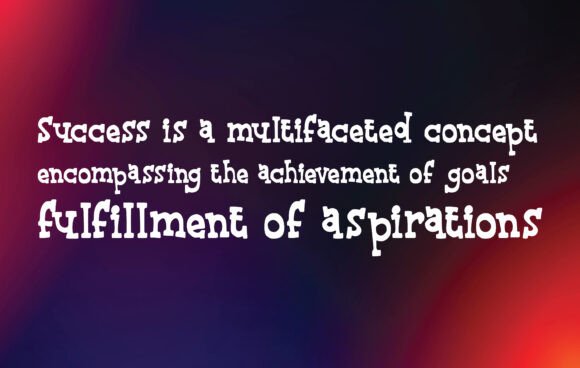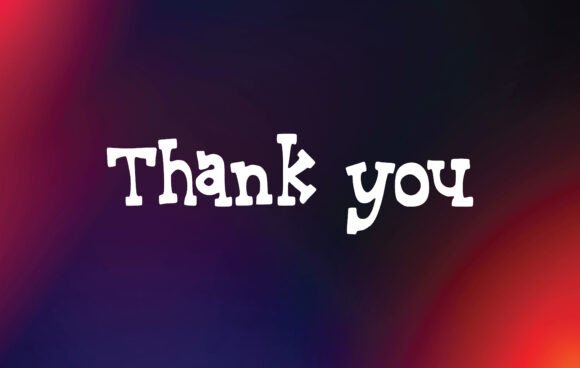
Addica Font: Elevate Your Creative Projects with this Lovely Handwritten Font
Are you a designer, craftsperson, or creative looking for a font that can take your projects to the next level? Look no further than Addica Font, a beautiful and lovely handwritten font that is sure to impress. With its unique and elegant style, Addica Font has the potential to elevate your creative ideas and make them shine.
What Makes Addica Font Special?
Addica Font is a carefully crafted handwritten font that boasts a distinctive and charming style. Its elegant lines, curves, and flourishes make it perfect for creating eye-catching logos, branding materials, and quotes. Whether you’re working on a personal project or a client’s, Addica Font is sure to make a lasting impression.
Key Features of Addica Font
- Unique and Elegant Style: Addica Font features a one-of-a-kind, handwritten design that is both sophisticated and charming.
- Highly Versatile: This font is perfect for a wide range of creative projects, from logos and branding to quotes and social media graphics.
- Easy to Read: Despite its elegant style, Addica Font is highly legible, making it perfect for both digital and print applications.
- Scalable: Addica Font is designed to look great at any size, from small captions to large headlines.
Why Choose Addica Font?
So why choose Addica Font over other fonts? Here are just a few reasons:
- Stand Out from the Crowd: With Addica Font, you can create unique and eye-catching designs that will set you apart from the competition.
- Save Time: This font is easy to use and doesn’t require a lot of manual adjustments, saving you time and effort.
- Professional Results: Addica Font is designed to produce professional-looking results, making it perfect for clients who demand high-quality designs.
How to Use Addica Font
- Experiment with Different Sizes: Addica Font looks great at a variety of sizes, so don’t be afraid to experiment and find the perfect size for your project.
- Play with Colors: This font looks great in a range of colors, from bold and bright to soft and pastel.
- Combine with Other Fonts: Addica Font pairs well with a variety of other fonts, so feel free to get creative and experiment with different combinations.
In conclusion, Addica Font is a beautiful and lovely handwritten font that is perfect for designers, craftspersons, and creatives looking to elevate their projects. With its unique and elegant style, highly versatile design, and ease of use, Addica Font is sure to become a go-to font in your collection. So why wait? Download Addica Font today and start creating stunning designs that will leave a lasting impression.